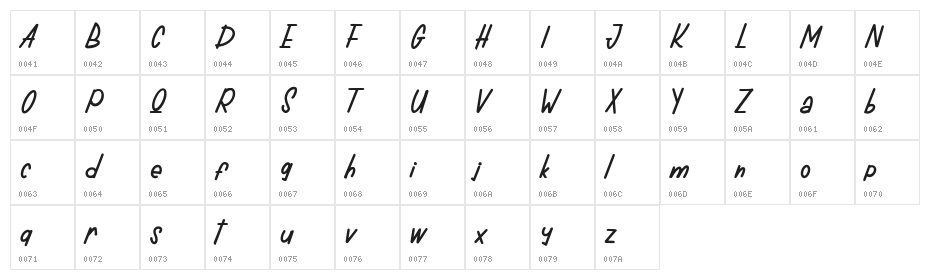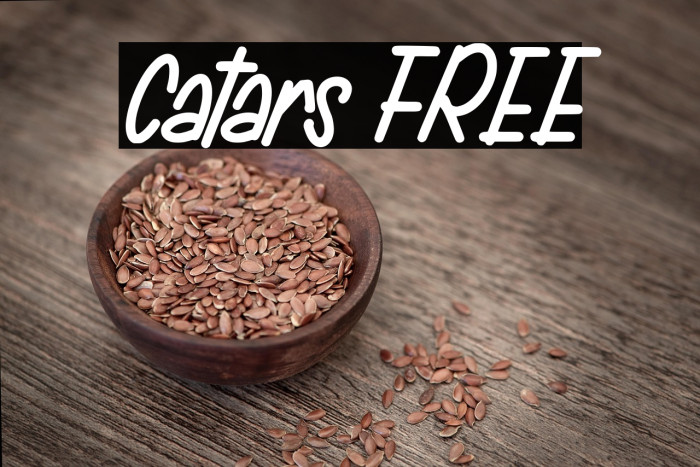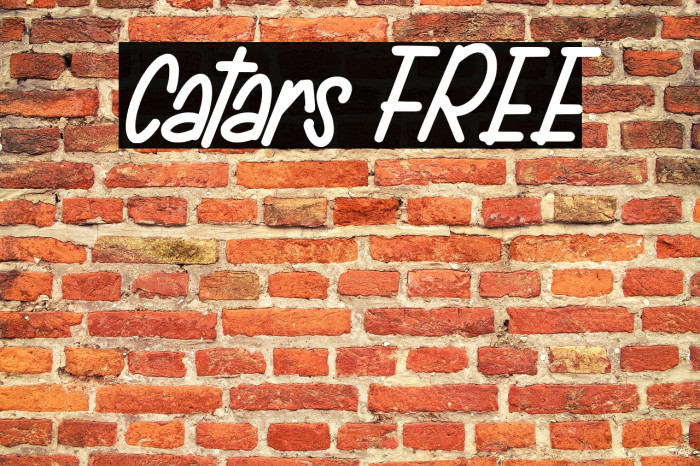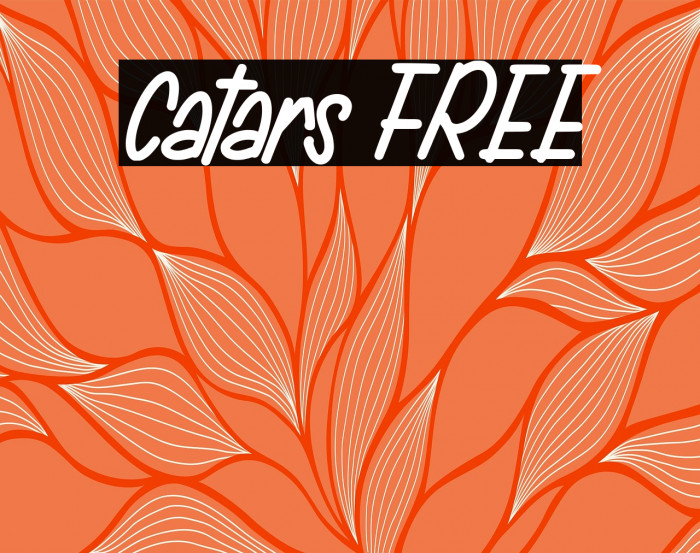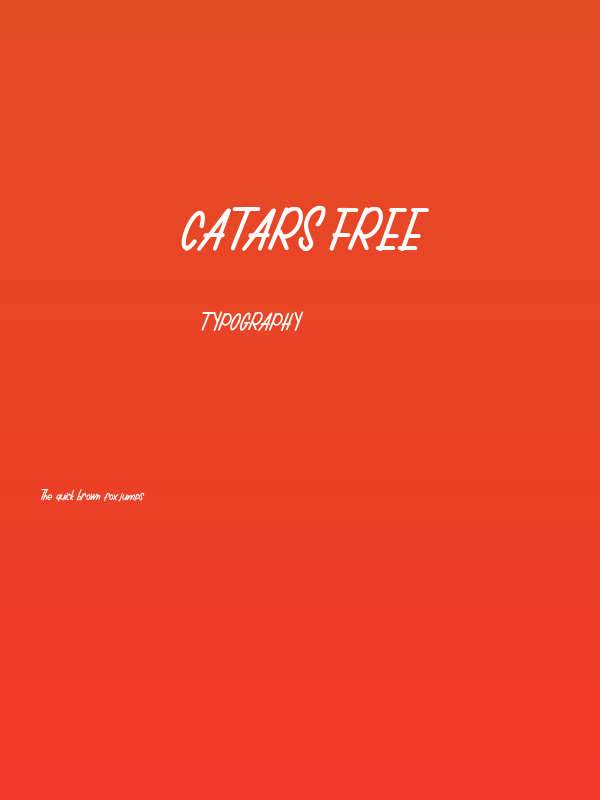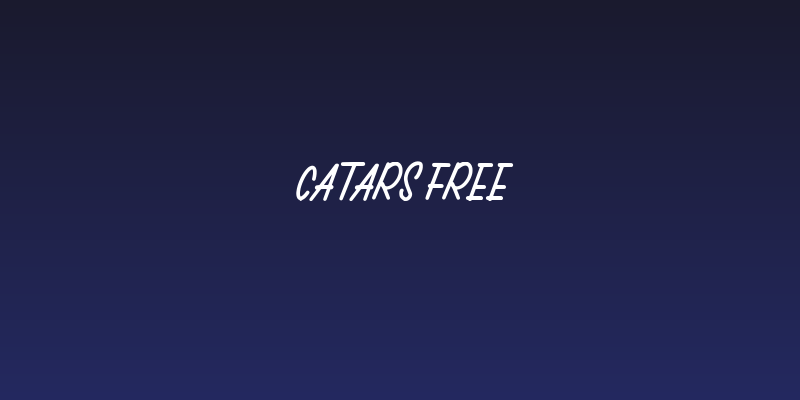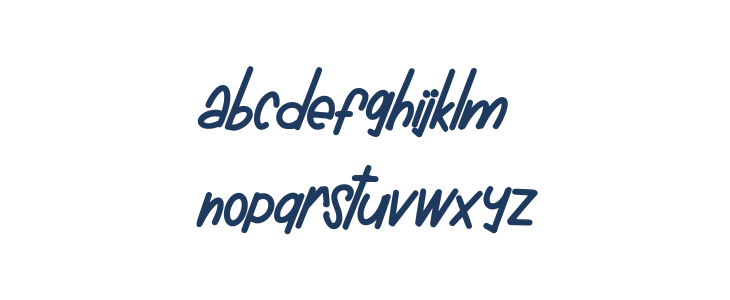
Catars FREE Font
Catars FREE Description
This font features a playful and energetic script style with a handwritten appearance. The letters are slightly slanted, giving a dynamic flow to the text. The uppercase and lowercase characters are well-balanced, with a consistent stroke width that maintains readability. The font includes a full set of uppercase and lowercase letters, numbers, and a selection of special characters. Its informal and friendly style makes it suitable for creative projects that require a personal touch.
| Overall Style | Casual |
| Use Case | Logos, Headlines, Invitations |
| Proposed Projects | Ideal for greeting cards, invitations, personal branding, and creative social media graphics. |